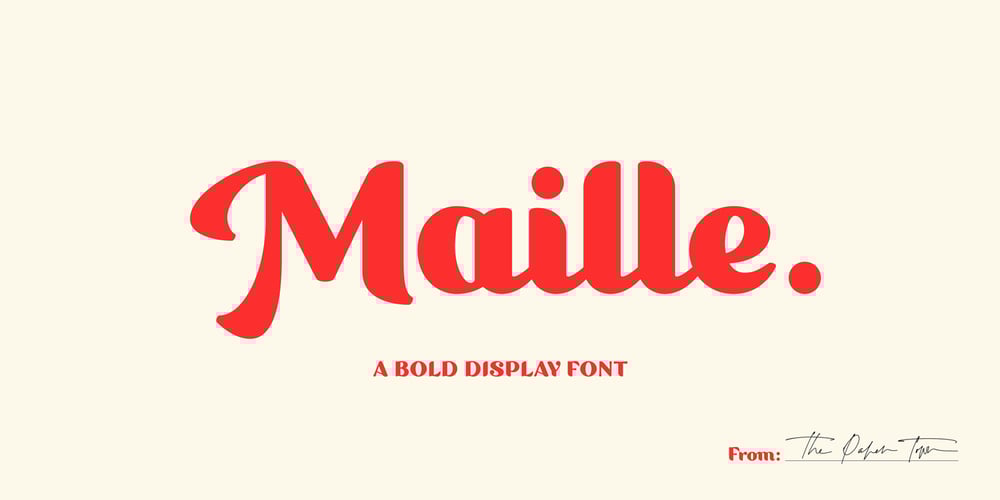
Maille Font Family was designed by Jessika Granell and published by The Paper Town. Maille contains 1 styles and family package options. Maille is a bold display font powered by OpenType, featuring contextual alternates, beautiful ligatures and stylistic sets with just a hint of retro feel.Maille comes with a set of 720+ glyphs and can cover a wide range of projects from branding to advertising, stationery, headers, quotes and so much more.OpenType features include stylistic alternates with lovely swashes, initial and terminal forms and contextual alternates to enhance your text and create beautiful designs. It also includes 139+ standard and discretionary ligatures with multilingual support.The OpenType features can be easily accessed by using an OpenType capable software such as Adobe Illustrator, Photoshop or InDesign.Maille supports multilingual characters for western, central and south-east European languages.